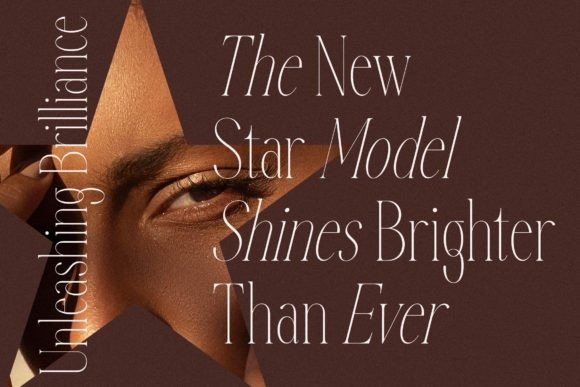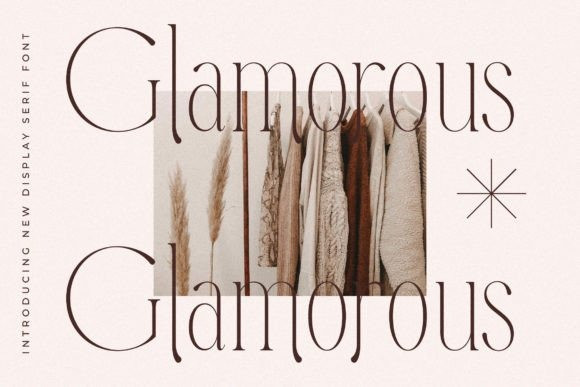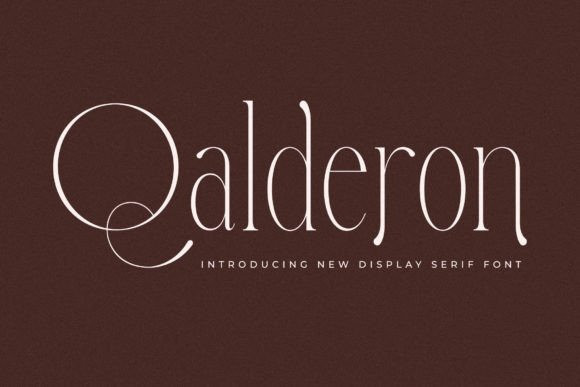
Qalderon Font
Qalderon Font by Storytype Studio 18,549 downloads
Qalderon Font
Qalderon Font, created by Storytype, a serif modern and classic typeface that has own unique style & modern look.